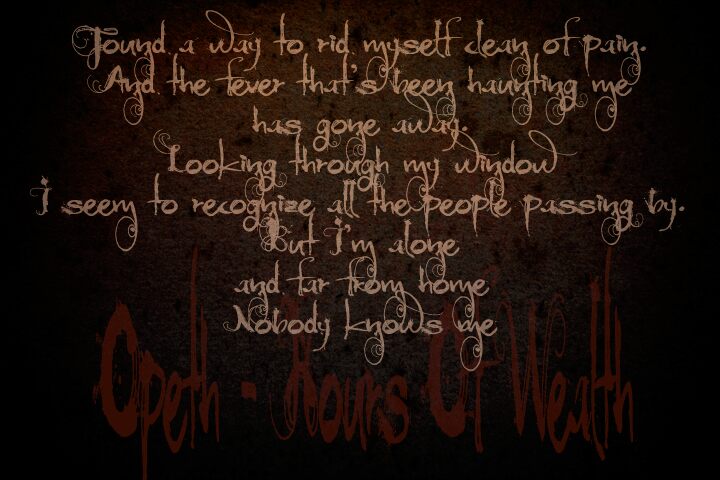
DK Moonlight Shadow
Moonlight Shadow, a captivating display font crafted by the talented David Kerkhoff, exudes a whimsical and enchanting essence. Its sinuous, curving strokes evoke a sense of ethereal grace, inviting the viewer to explore its elegant, flowing forms. The font's unique character seamlessly blends the allure of calligraphy with a touch of modern sophistication, creating a visually striking impression that captivates the eye.
This versatile font lends itself beautifully to a range of design applications, from captivating headlines and impactful logos to eye-catching branding and alluring packaging. Moonlight Shadow's exquisite, flowing shapes make it an excellent choice for projects that call for a touch of whimsy and elegance, effortlessly elevating the overall aesthetic and leaving a lasting impression on the audience.